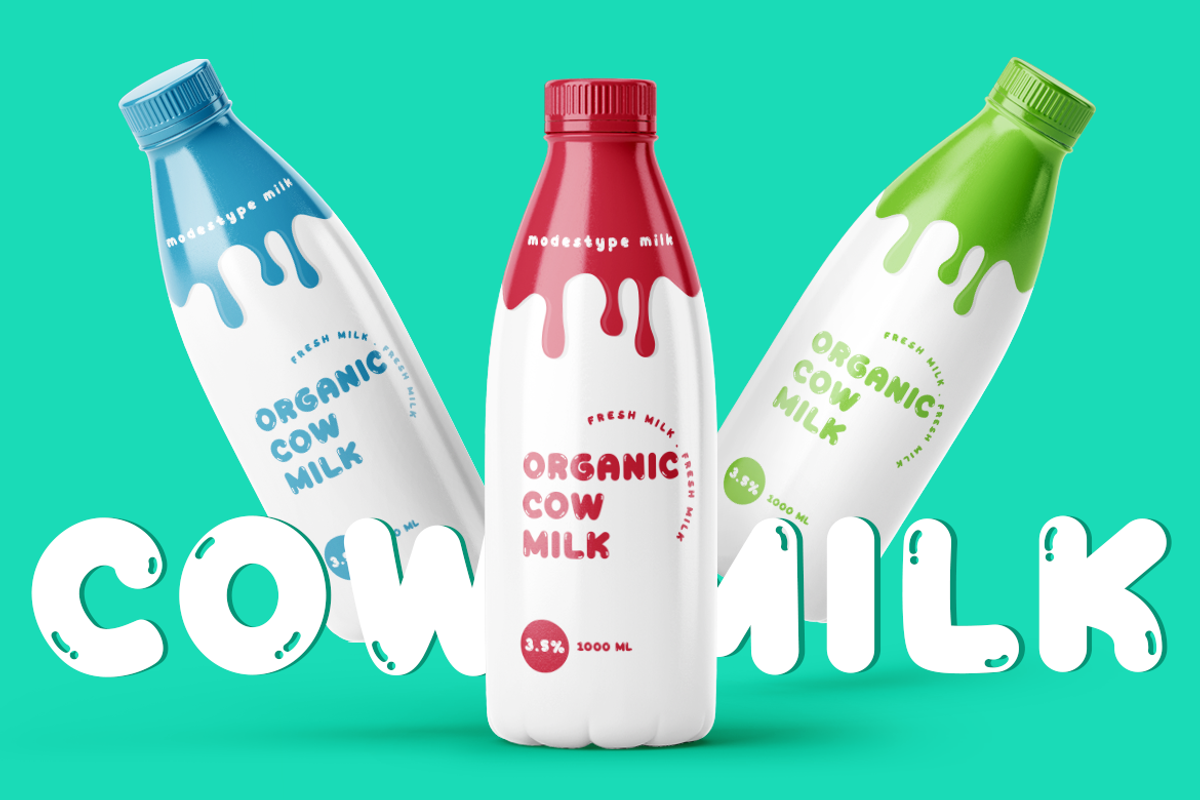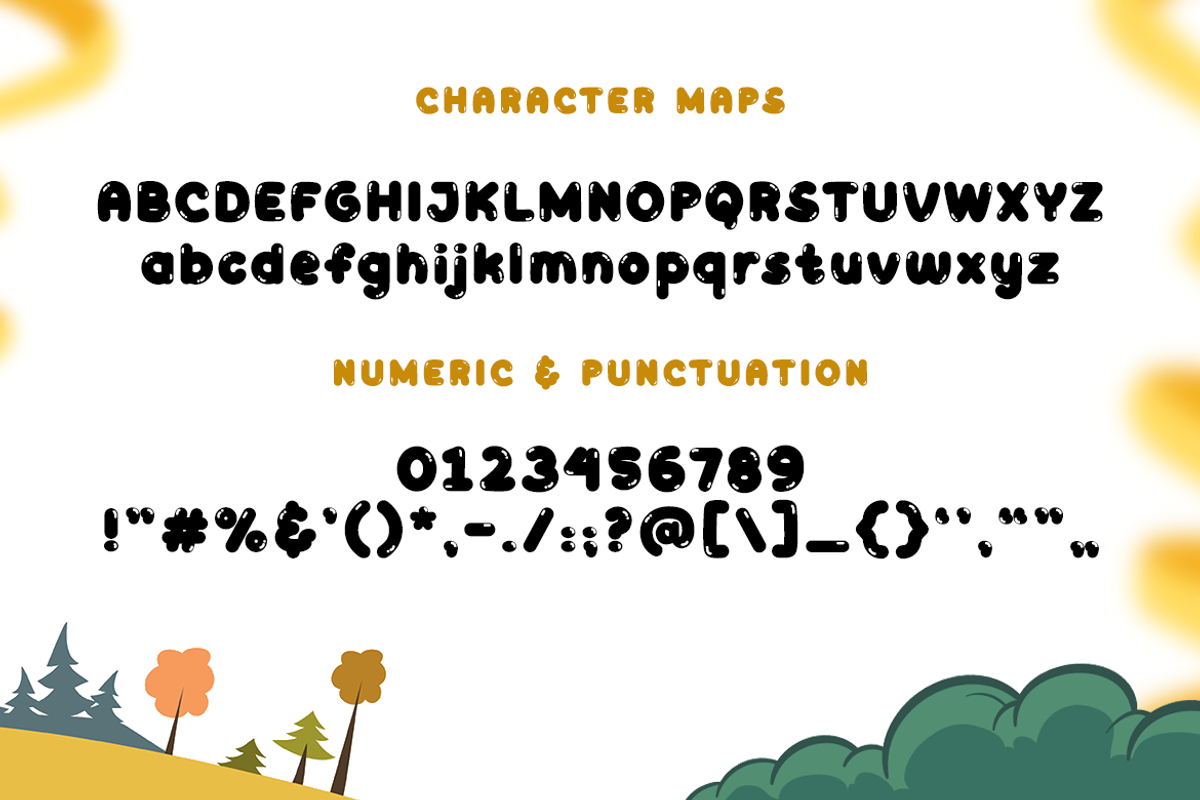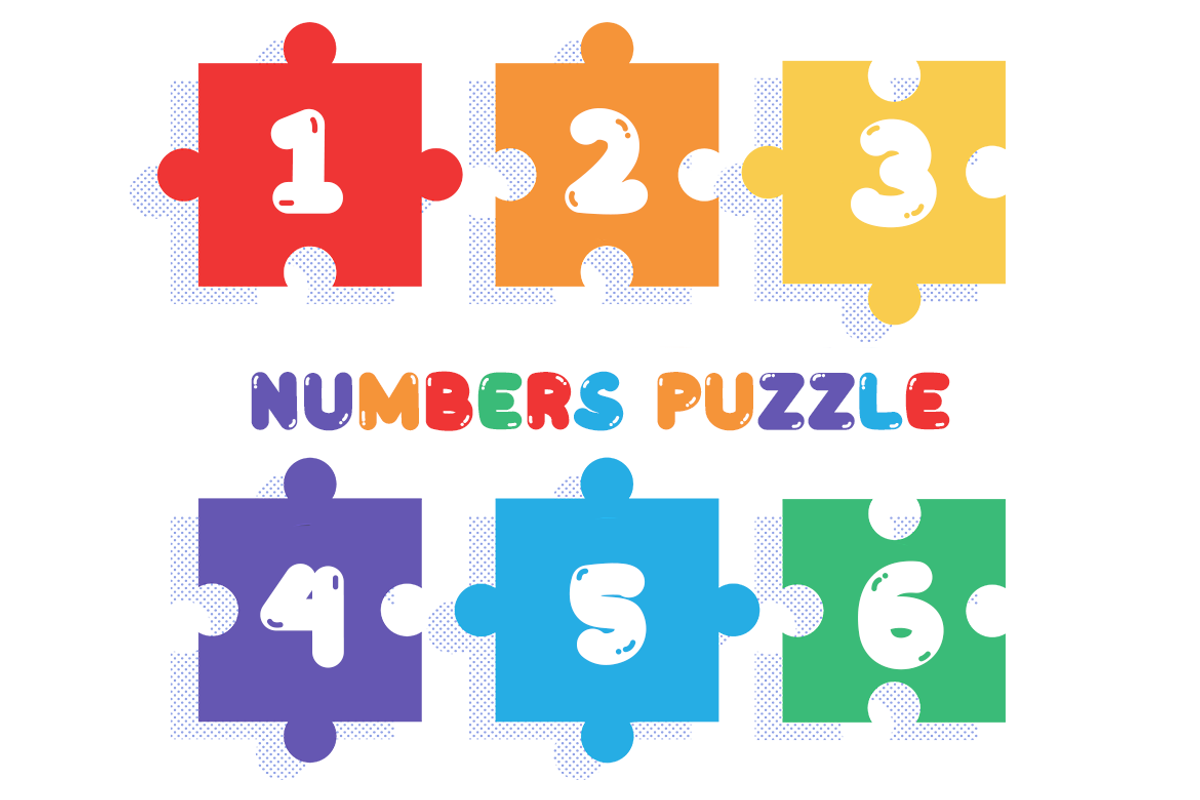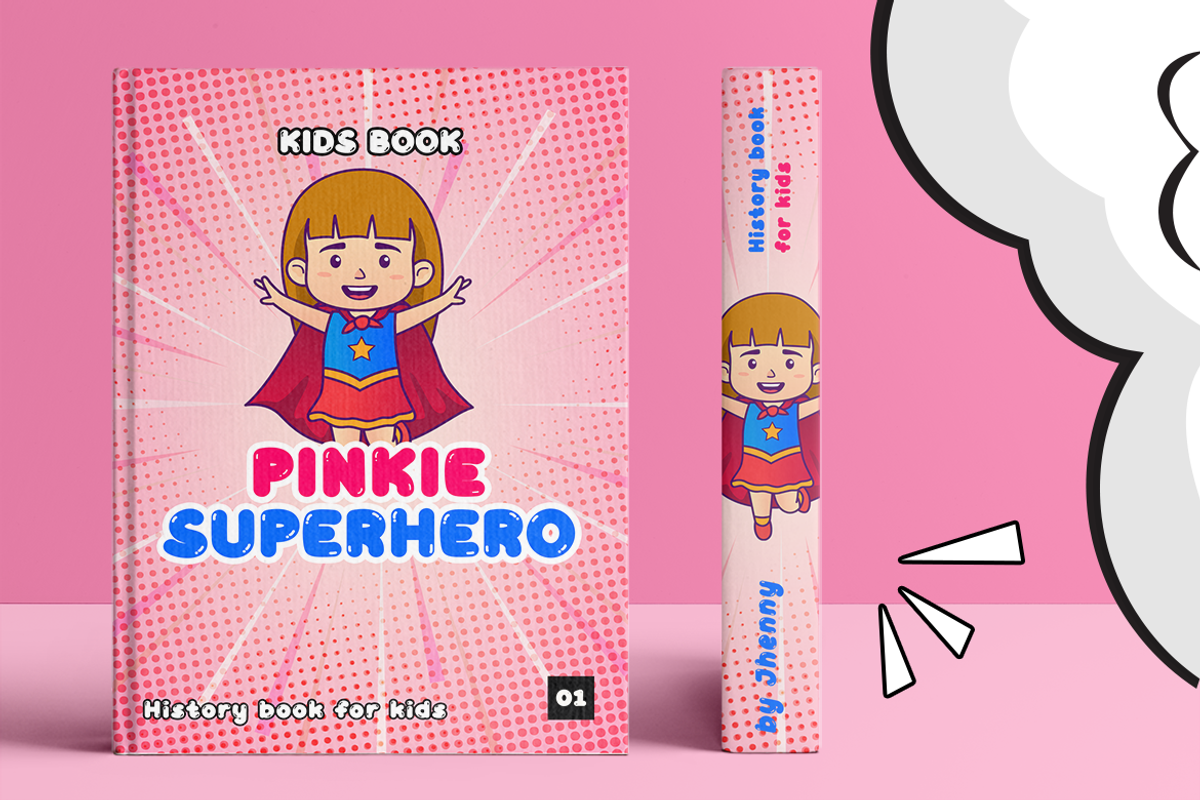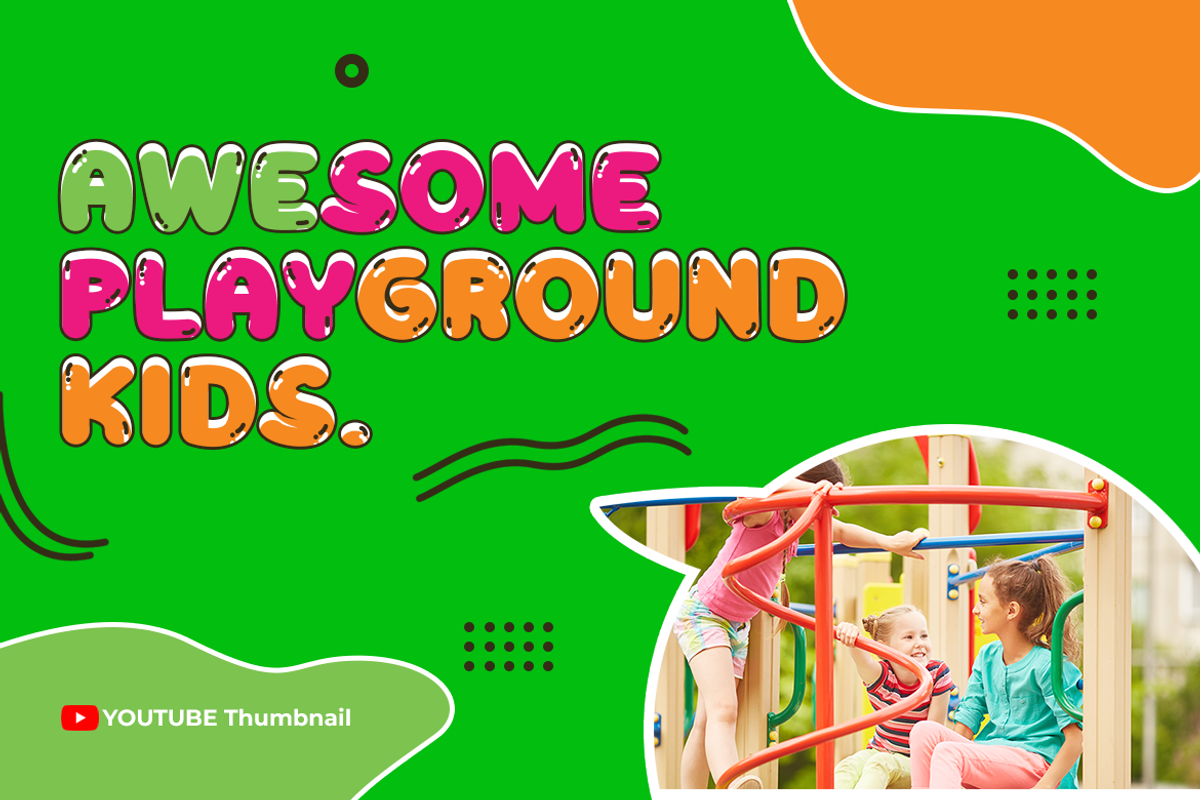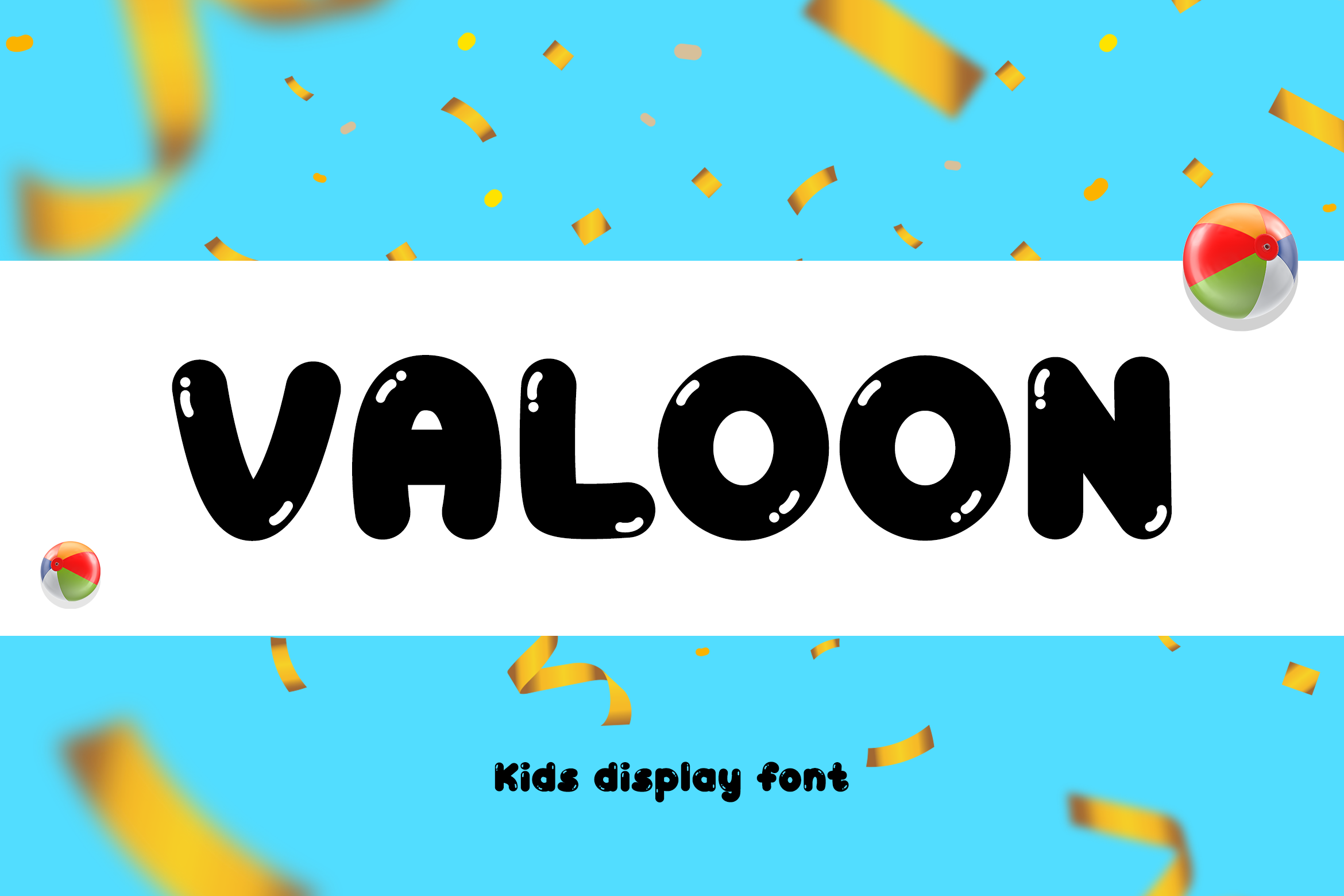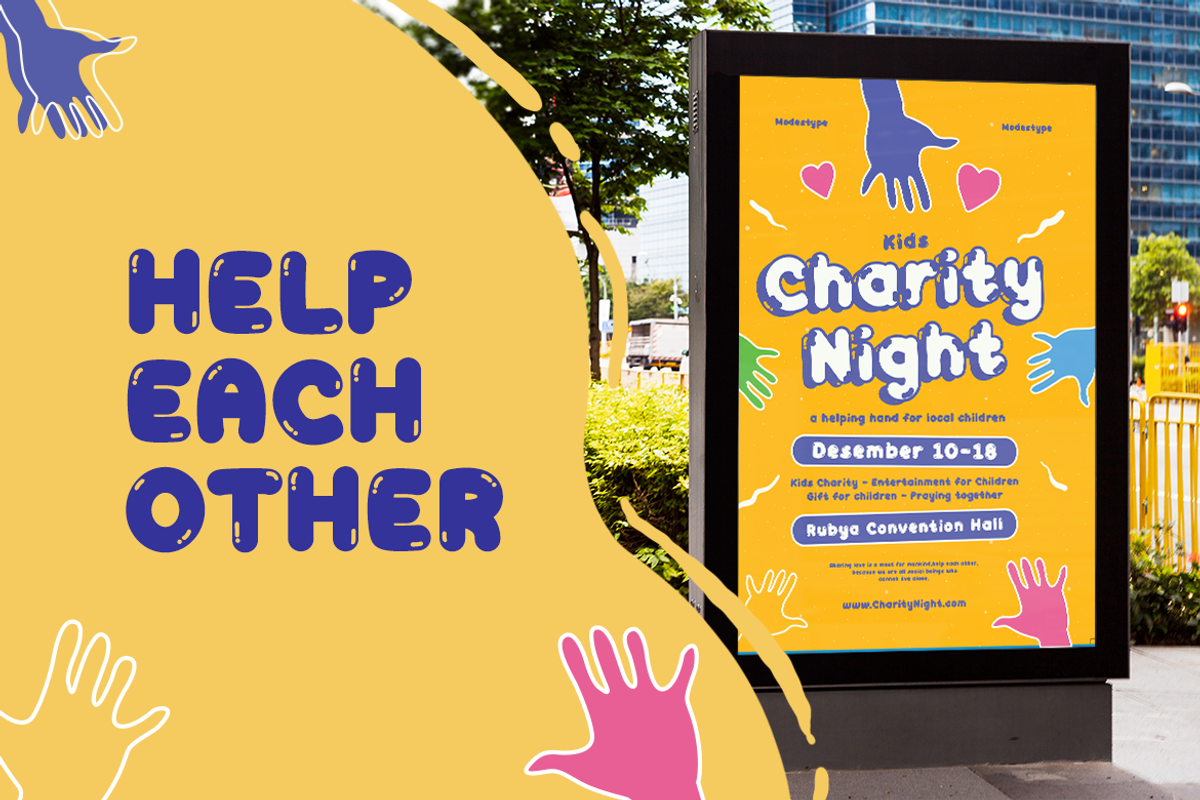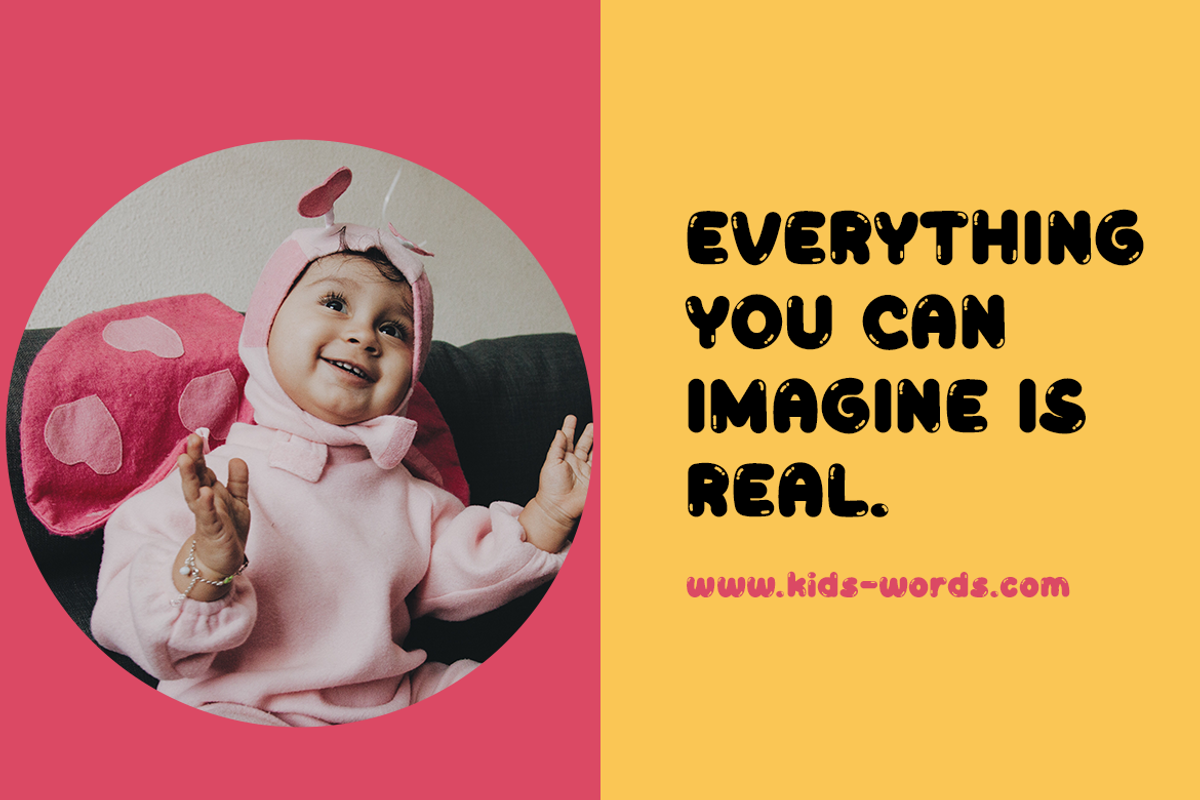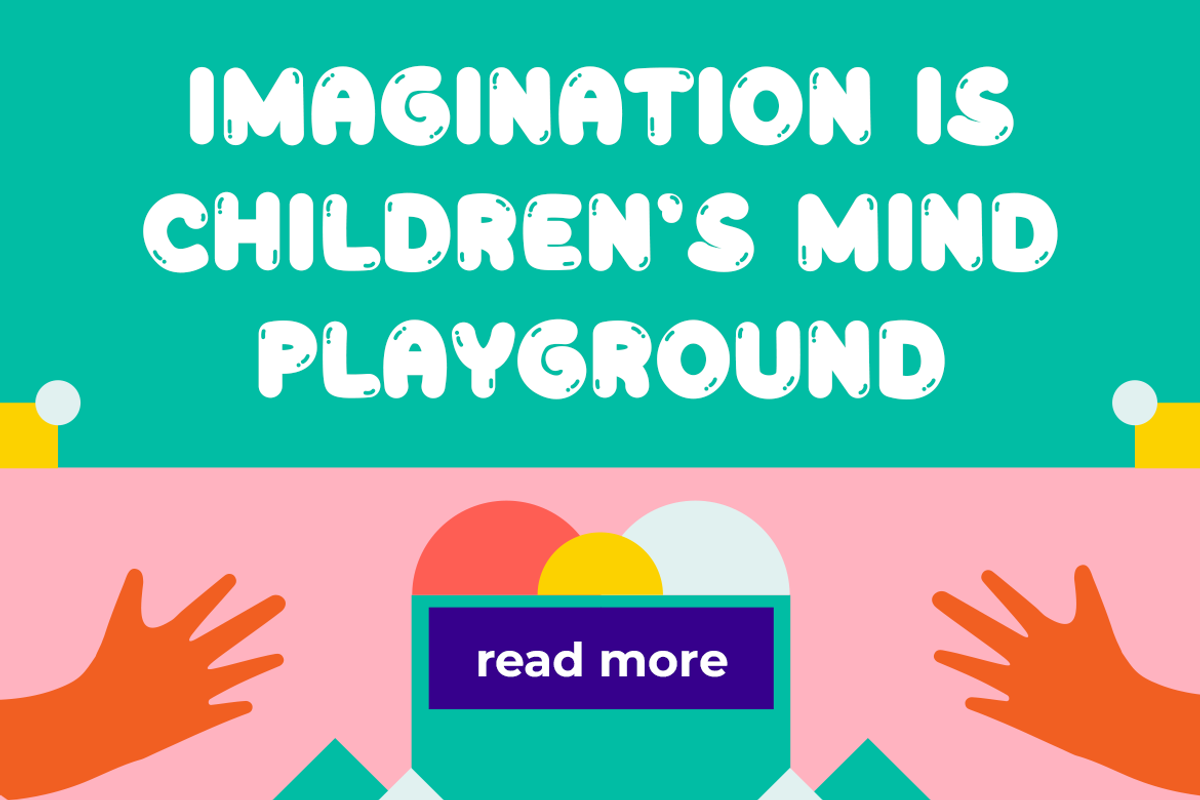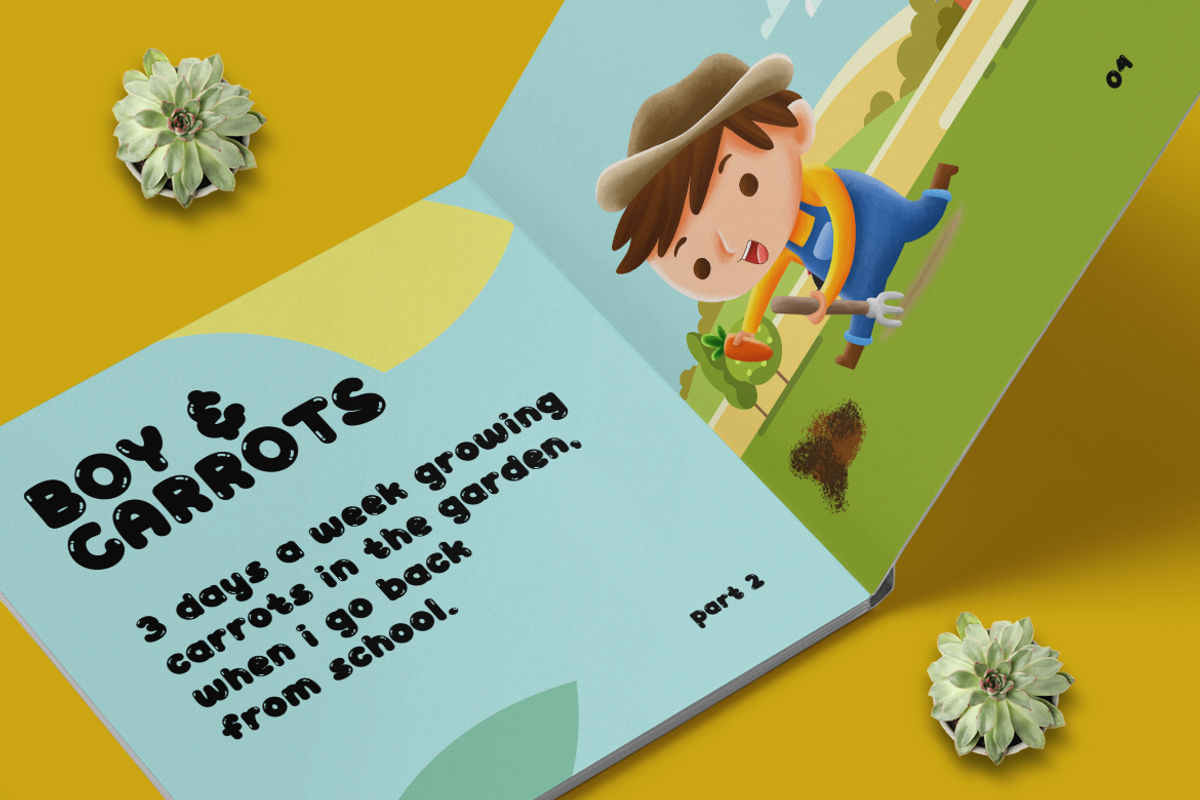
Valoon – Kids Display Font
Introducing Valoon, the perfect display font for children’s projects. This bubble font is both cute and funny, making it ideal for cartoon, comic, and school-themed designs. Valoon will bring joy to any project, from gaming to movies, and it’s perfect for use on Instagram and YouTube.
With its sans serif style, Valoon captures the spirit of childhood in a fun and engaging way. Whether you’re creating content for kids or just want to add a touch of whimsy to your design, Valoon is the perfect choice.